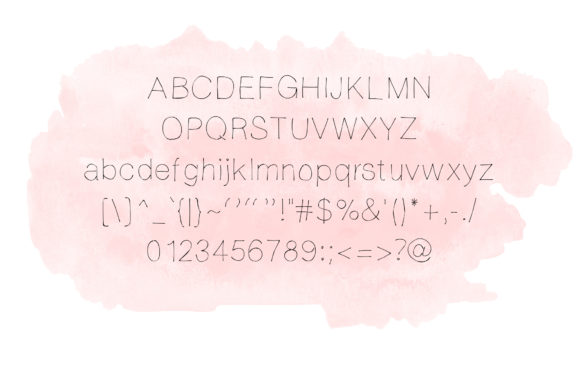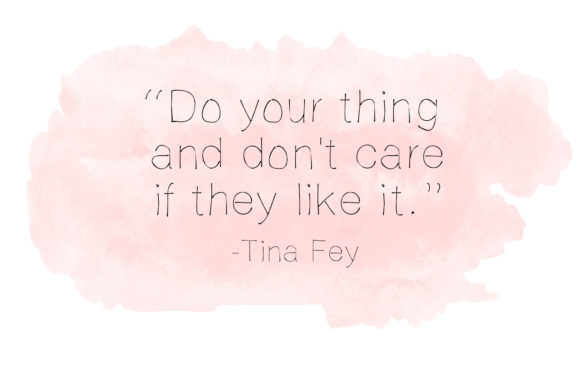
Introduction to Niedbauy Font Font
Fonts play a crucial role in design, and the Niedbauy Font font is a typeface that brings both character and versatility to any project. Whether you’re working on a branding project, a website, or a print design, the Niedbauy Font font offers a unique style that can elevate your work.
Niedbauy is a simple and friendly handwritten font.
Key Features of Niedbauy Font Font
Why Choose Niedbauy Font Font?
The Niedbauy Font font is more than just a typeface – it’s a design tool that helps you communicate your message with style and clarity. Its unique character set and versatile design make it suitable for a wide range of applications, from elegant invitations to bold headlines.
With its carefully crafted letterforms and balanced proportions, the Niedbauy Font font ensures readability and visual appeal across all mediums.
What makes Niedbauy Font font special?
The Niedbauy Font font stands out with its unique design, exceptional readability, and versatility across various design applications.